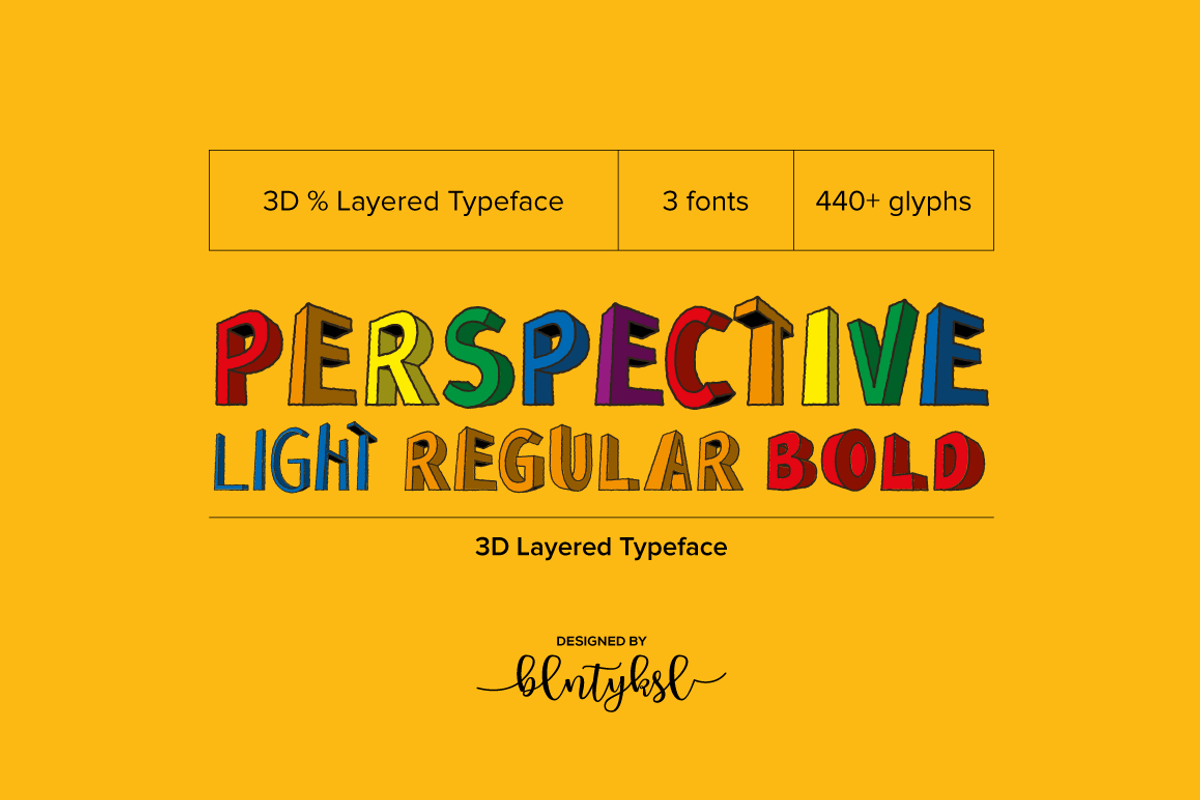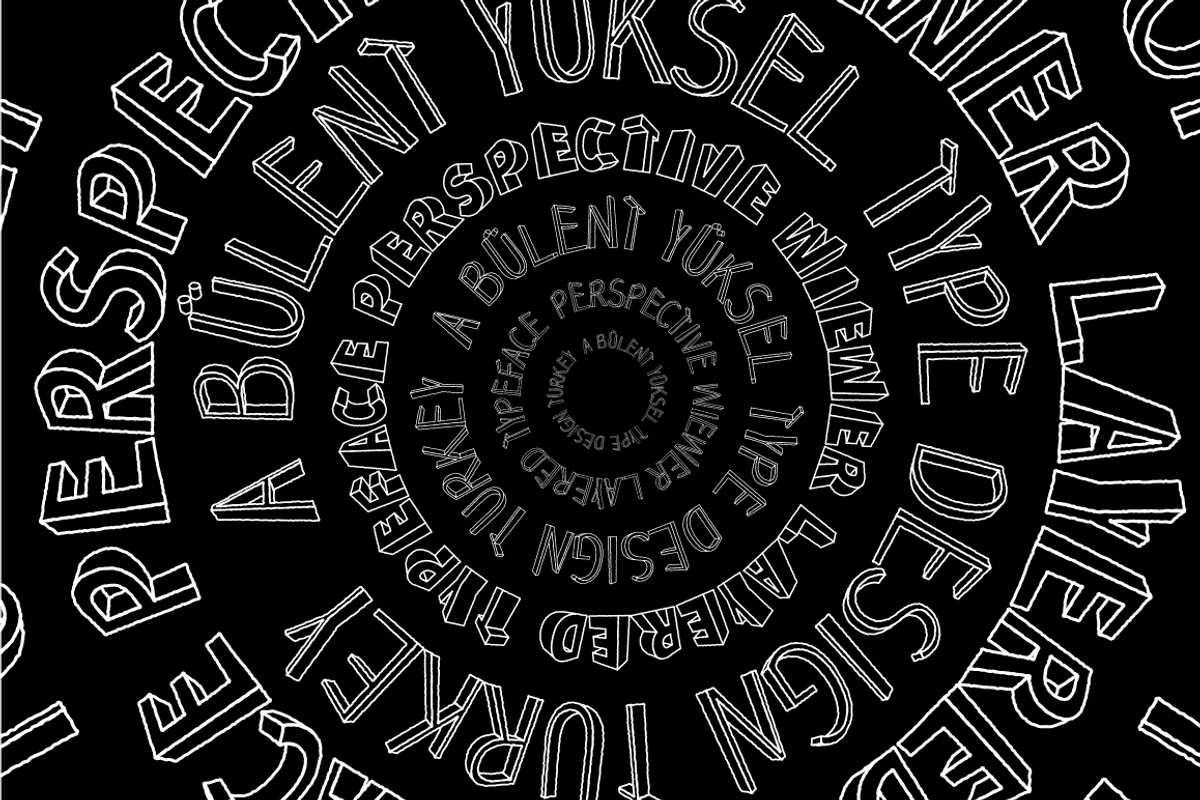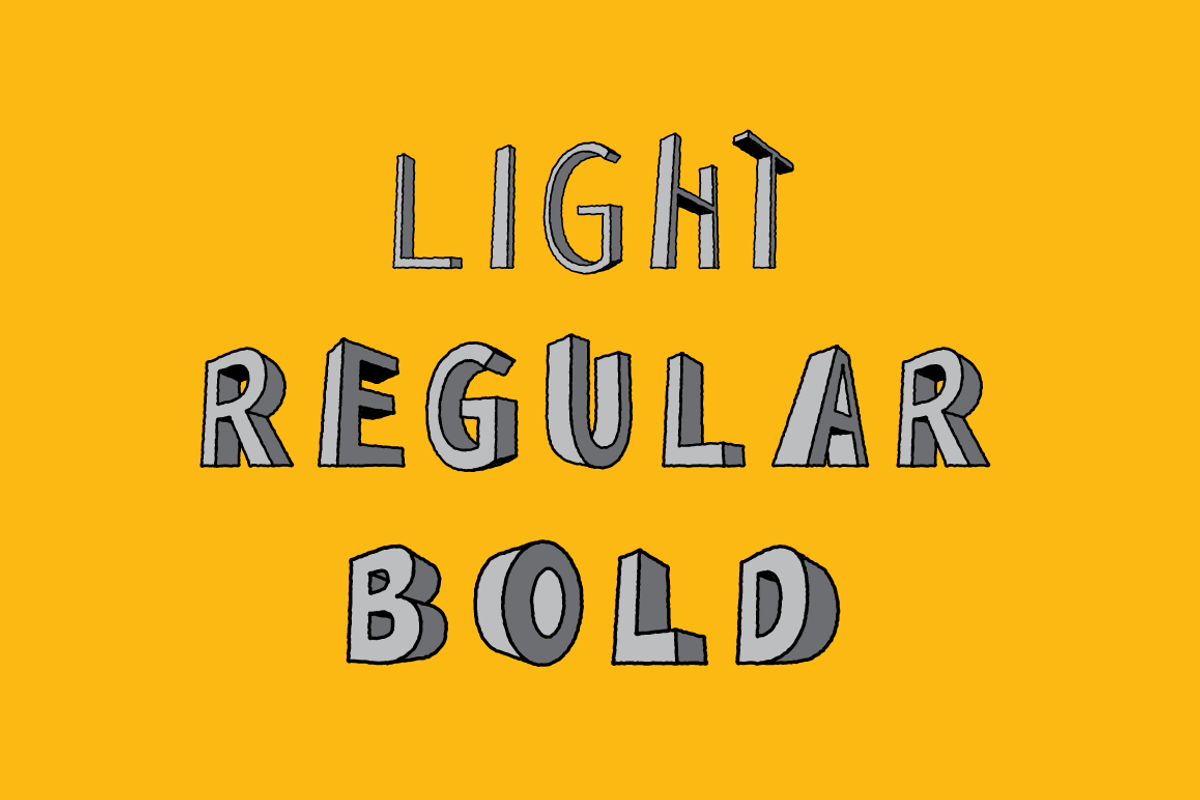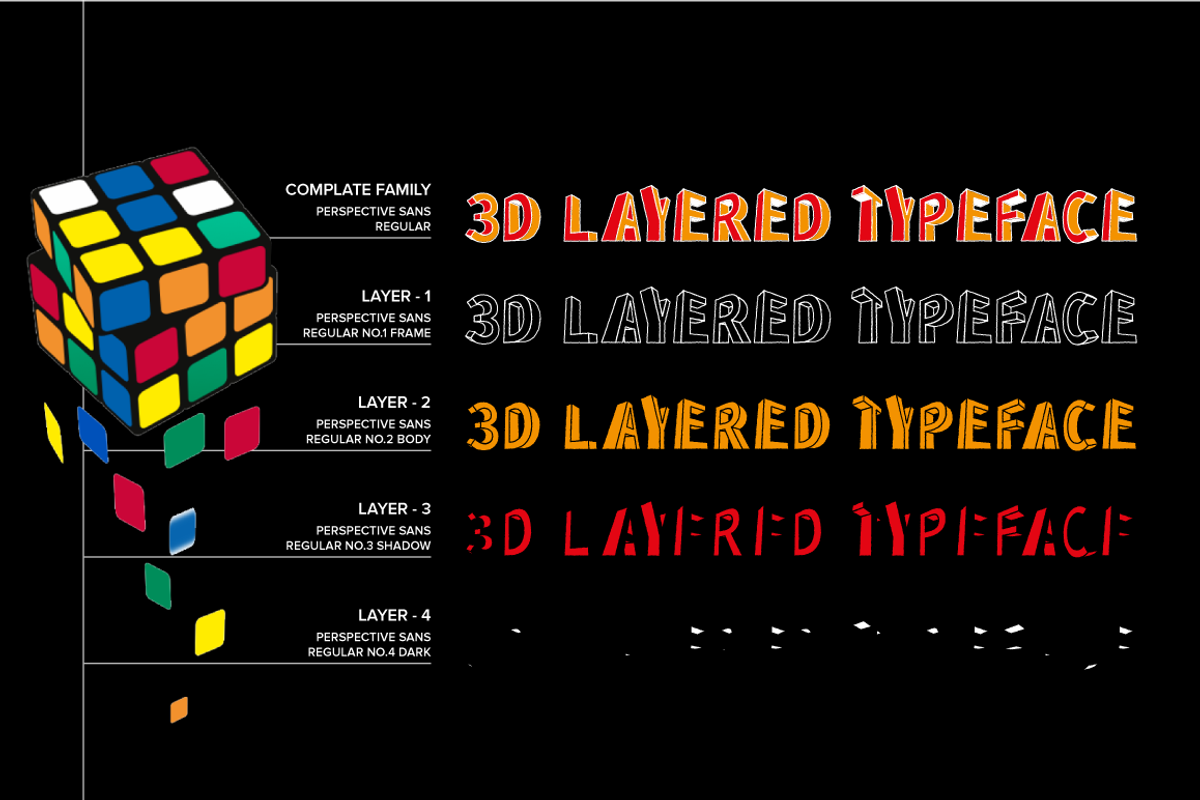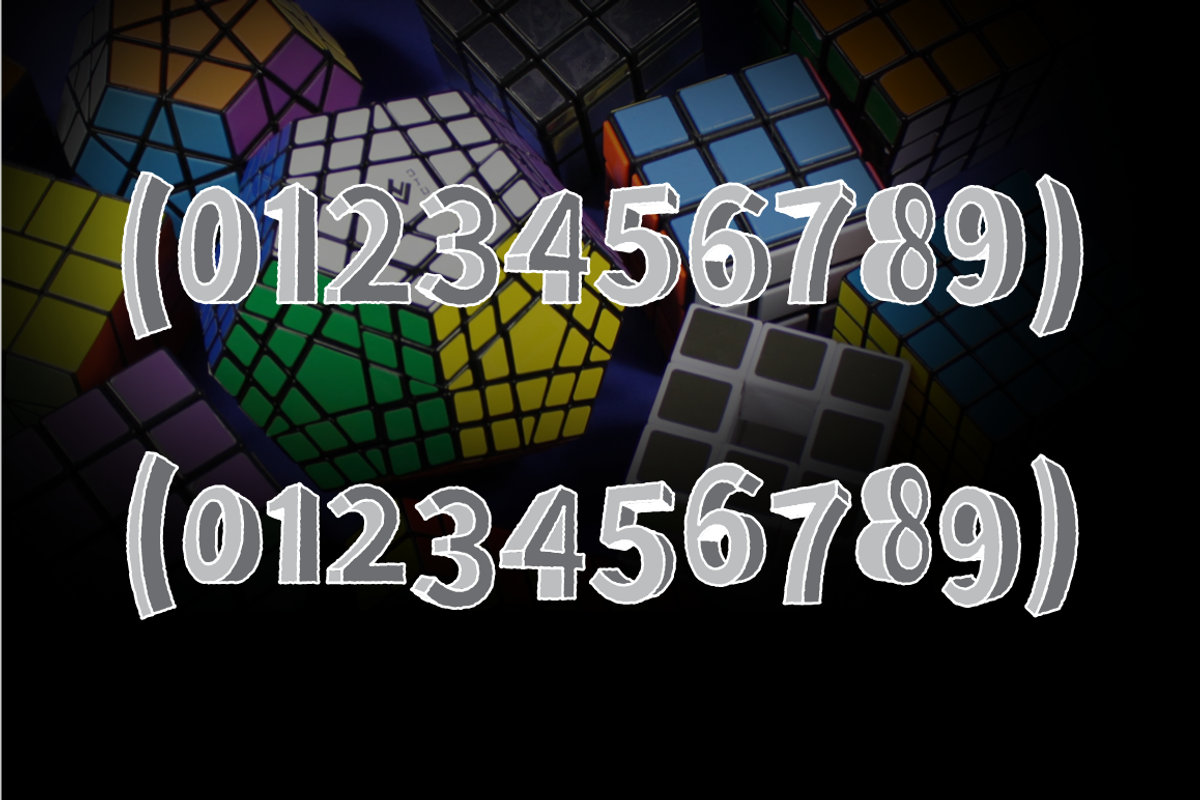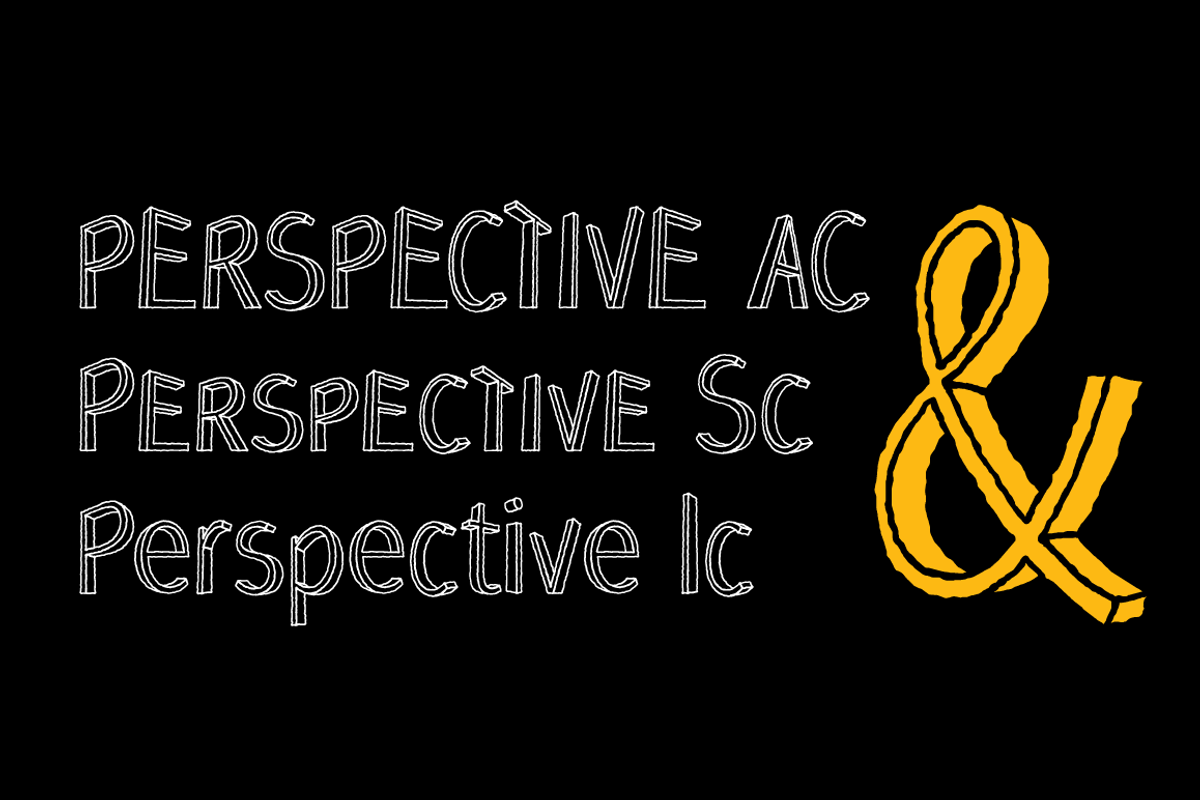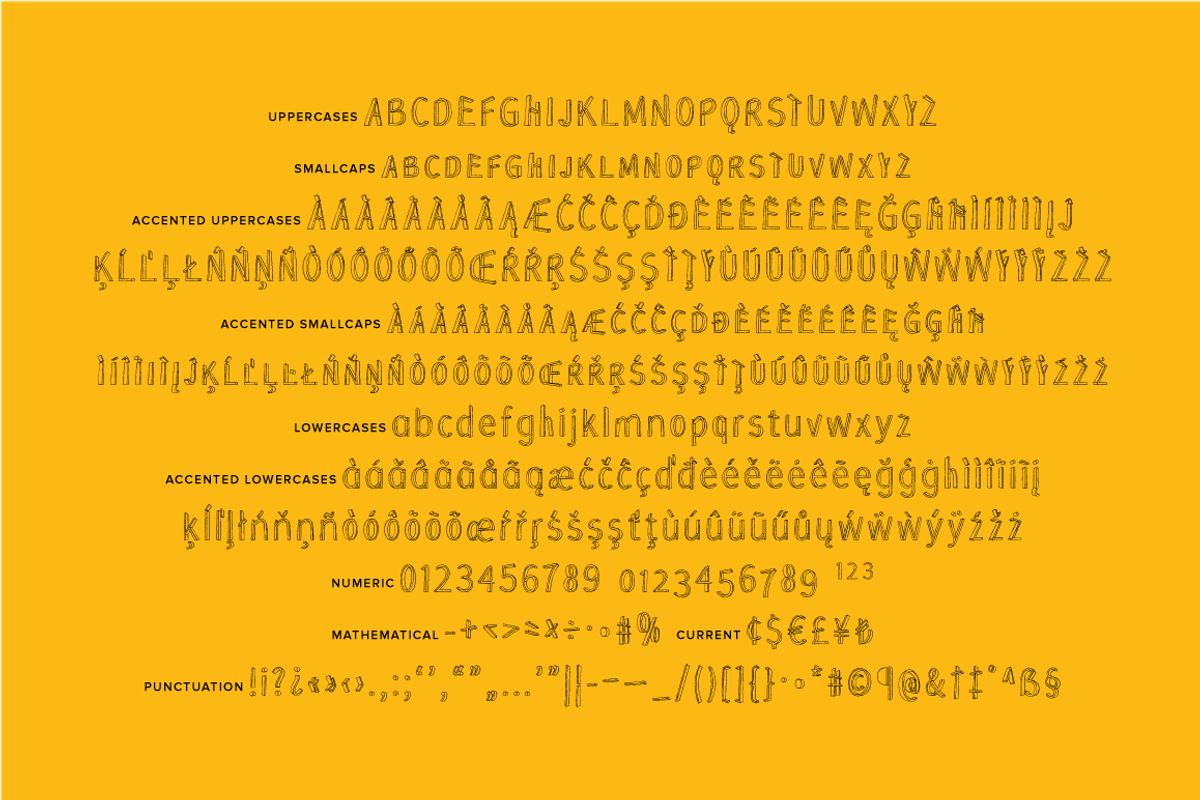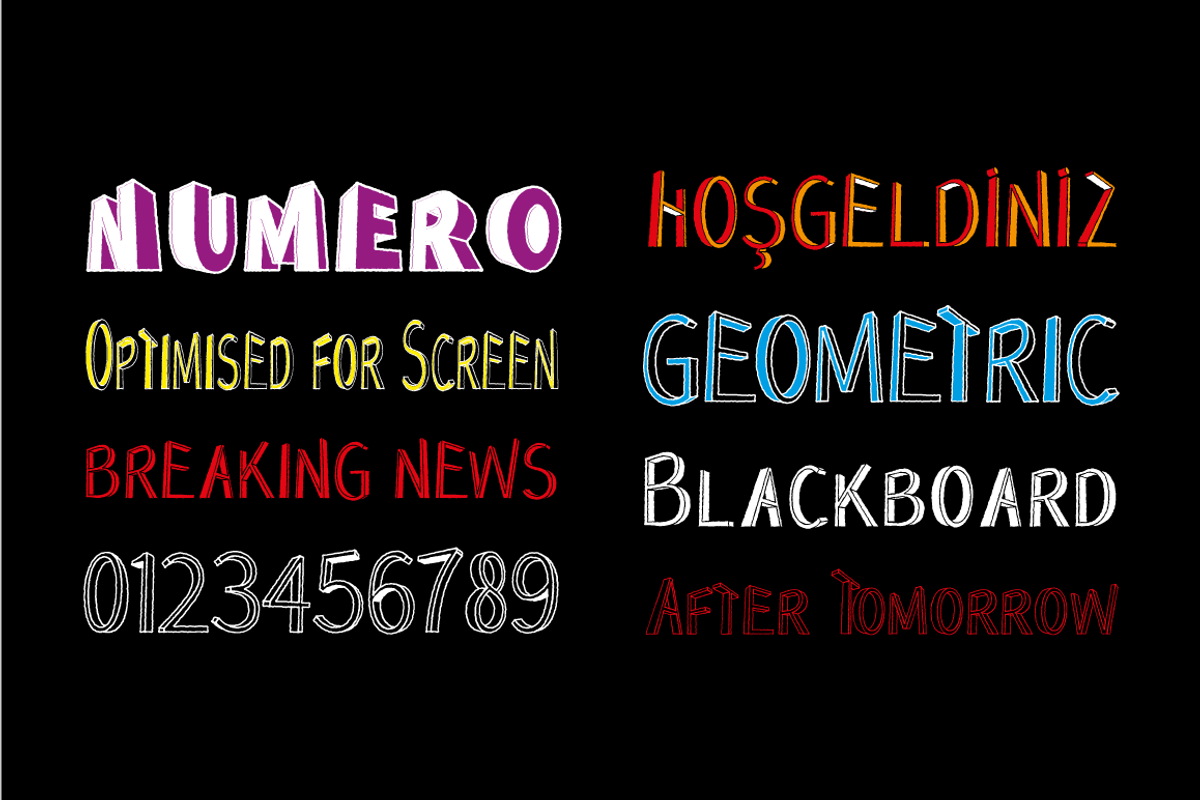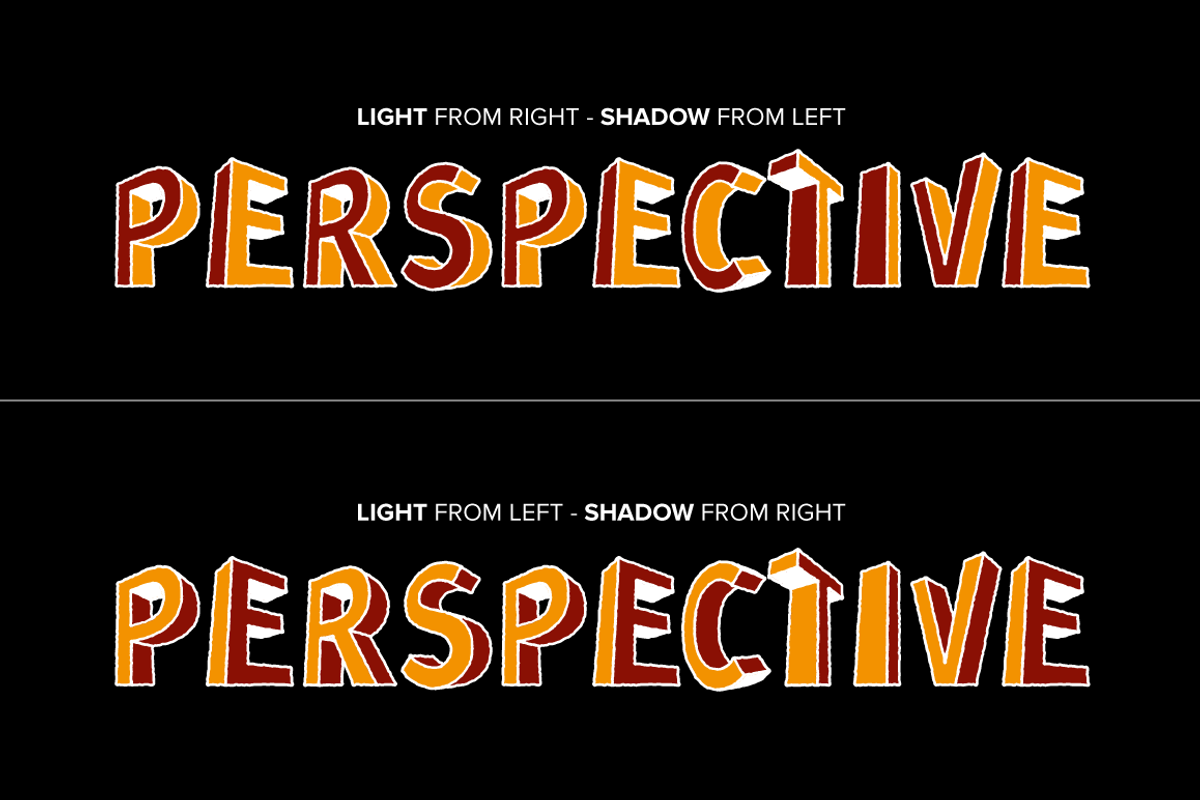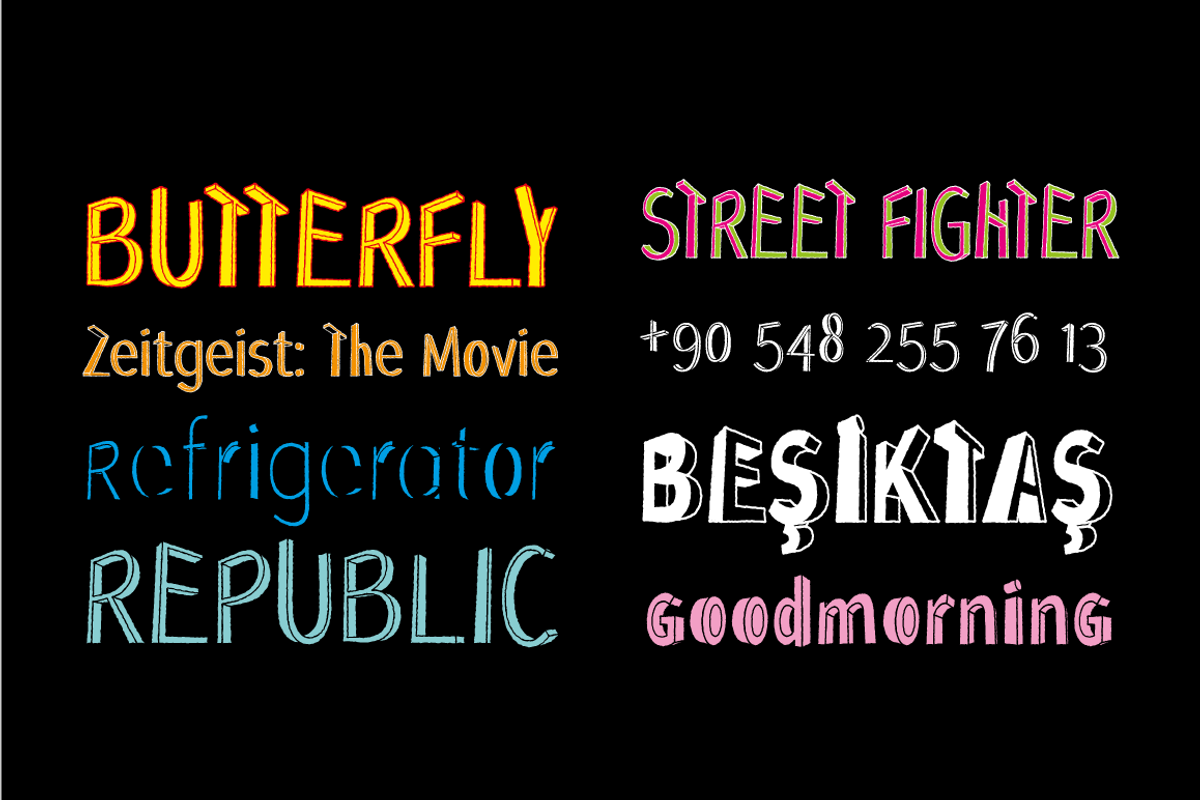
Perspective Sans
PERSPECTIVE SANS COMPLATE FAMILY
The font primarily had a strong body. Family has a four layered experience. All and in harmony.
This font has a strong personality, that makes it perfect for use in headline sizes. Also use for print, motion graphics, logo design, packaging design, t-shirts and more.
By using layers, you can design different colors and sizes by repositioning lights and shadows. This will allow you to take your designs to the next level.
Using this unique font, you'll have a lot of fun and produce beautiful materials.